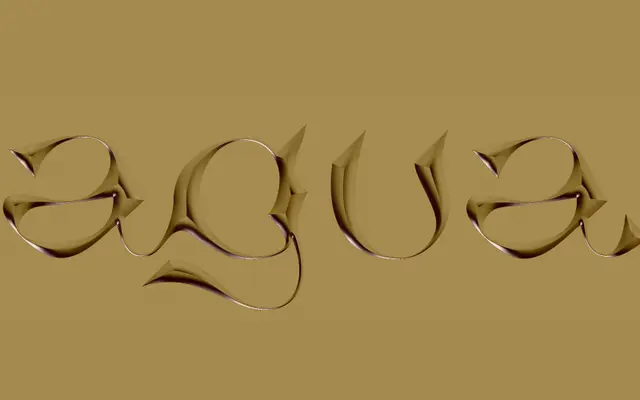
Goliagolia
An Italian-designed display face that mixes baroque letter forms with deliberately imperfect hand-drawn geometry, producing an unusually spirited contrast between rough construction and sharp curves.
Designed by Alex Valentina, Goliagolia blends baroque calligraphic traits with geometrically imperfect strokes, each letter carrying its own distinct details while remaining coherent within the family. Two styles are offered: Regular and Sharp, the latter pushing the modern display curves further. The typeface has attracted attention in editorial and identity contexts where an eccentric, high-contrast serif voice is needed, earning a description from AIGA Design as 'a spaceship collided with a baroque cathedral'.
A display typeface blending baroque letter forms with geometric, hand-drawn imperfection. The contrast between irregular stroke construction and sharp modern curves places it firmly in the display category with a decorative serif subcategory.